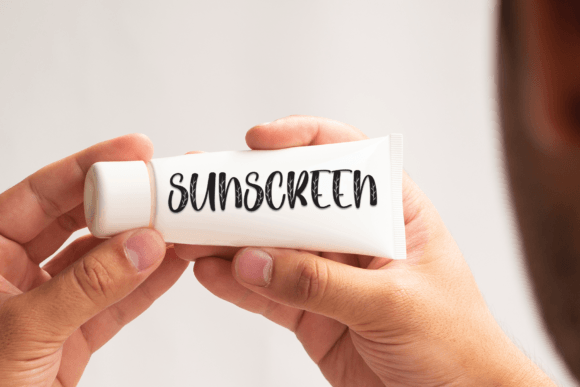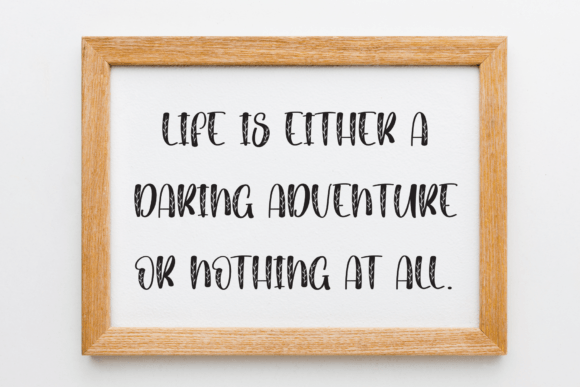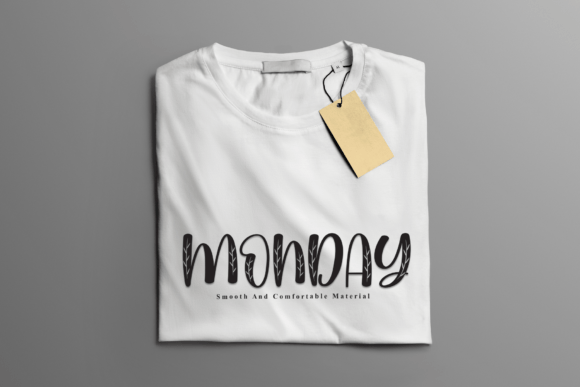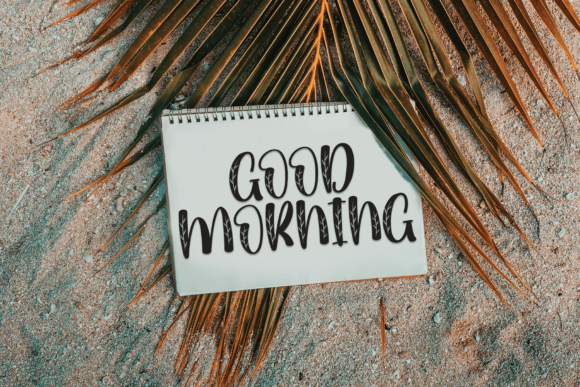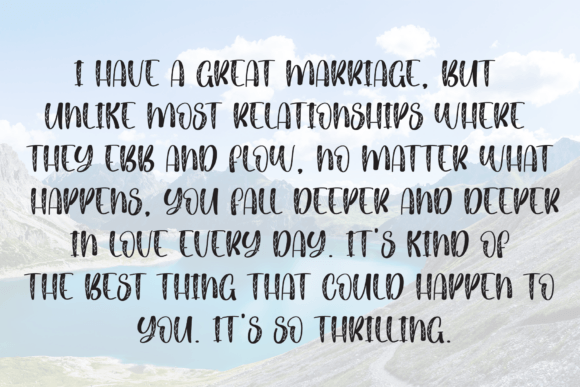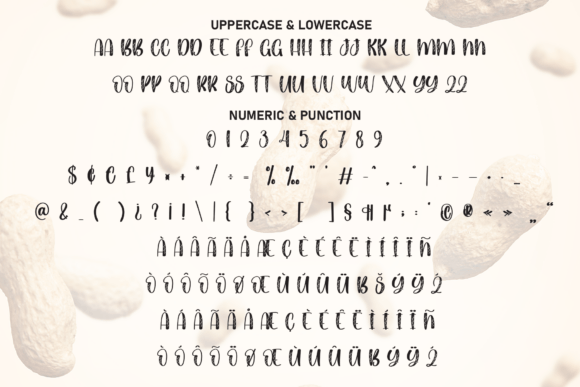
Introduction to Peanut Shells Font
Peanut Shells is a charming decorative font with a touch of nature-inspired elegance.
Featuring stylish letterforms adorned with leaf-like details, this typeface brings a playful and organic vibe to your designs Ideal for branding, packaging, invitations, and crafts, Peanut Shells adds a whimsical yet sophisticated flair to any project.